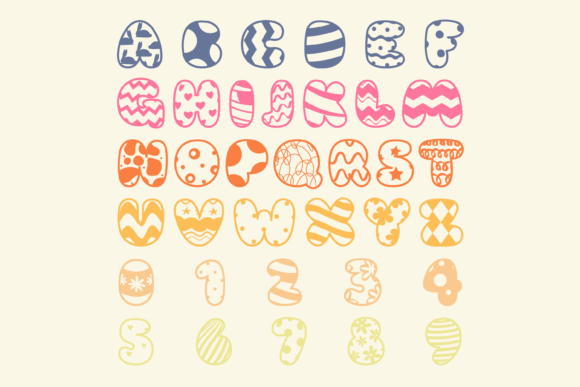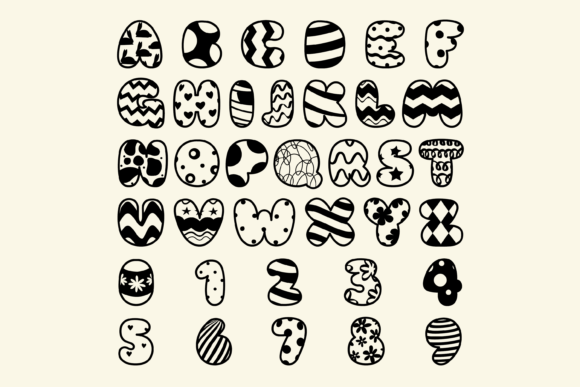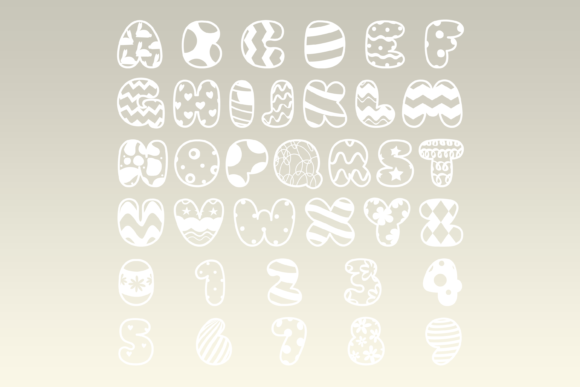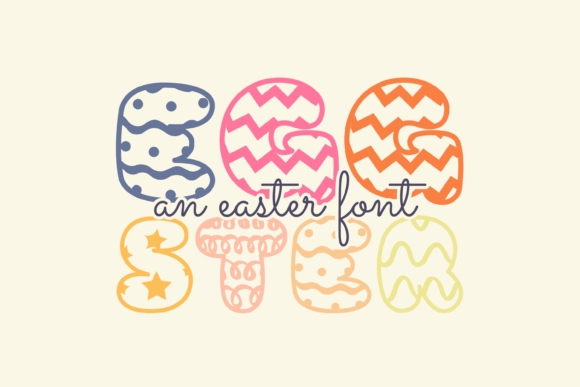
Eggster Font: The Ultimate Decorative Font for Creative Projects
Eggster is an incredibly cool decorative font that has been making waves in the design community. Whether you use it for custom designs, DIY crafts, or just any creation that requires a lovely touch, this font will be an amazing choice. In this article, we’ll dive into the world of Eggster Font, exploring its features, uses, and benefits for designers and crafters alike.
What is Eggster Font?
Eggster Font is a unique and visually stunning decorative font that is perfect for adding a touch of elegance and whimsy to any project. Its distinctive design features intricate details and a playful flair, making it stand out from more traditional fonts. With Eggster Font, you can add a personal touch to your creations and make them truly one-of-a-kind.
Key Features of Eggster Font
- Unique Design: Eggster Font boasts a distinctive design that is both elegant and playful, making it perfect for a wide range of creative projects.
- High-Quality Letters: The font features high-quality letters with intricate details, ensuring that your designs look professional and polished.
- Versatile: This font can be used for a variety of projects, from custom designs and DIY crafts to digital art and more.
Uses of Eggster Font
Eggster Font is a versatile font that can be used for a wide range of creative projects. Here are some ideas to get you started:
- Custom Designs: Use Eggster Font to create custom designs for special occasions, such as weddings, birthdays, and holidays.
- DIY Crafts: Add a personal touch to your DIY crafts, such as scrapbooking, card making, and journaling, with Eggster Font.
- Digital Art: Use Eggster Font to create stunning digital art, including illustrations, graphics, and more.
- Signage: Eggster Font is perfect for creating eye-catching signage for businesses, events, and more.
Benefits of Using Eggster Font
There are many benefits to using Eggster Font for your creative projects. Here are a few:
- Adds a Personal Touch: Eggster Font allows you to add a personal touch to your creations, making them truly unique and special.
- Enhances Visual Appeal: The font’s distinctive design and intricate details enhance the visual appeal of your projects, making them stand out from the crowd.
- Easy to Read: Despite its decorative nature, Eggster Font is easy to read, making it perfect for projects that require both style and substance.
- Time-Saving: With Eggster Font, you can create professional-looking designs in no time, saving you time and effort.
Tips for Using Eggster Font
Here are some tips for getting the most out of Eggster Font:
- Experiment with Different Sizes: Try using Eggster Font in different sizes to create visual interest and hierarchy in your designs.
- Pair with Other Fonts: Experiment with pairing Eggster Font with other fonts to create unique and interesting combinations.
- Use for Headings and Titles: Eggster Font is perfect for headings and titles, adding a touch of elegance and sophistication to your designs.
- Don’t Overuse: While Eggster Font is stunning, it’s best to use it sparingly to avoid overwhelming your designs.
In conclusion, Eggster Font is an incredibly cool decorative font that is perfect for designers and crafters looking to add a touch of elegance and whimsy to their creative projects. With its unique design, high-quality letters, and ease of use, Eggster Font is a versatile font that can be used for a wide range of applications. Whether you’re creating custom designs, DIY crafts, or digital art, Eggster Font is sure to make your projects stand out from the crowd.